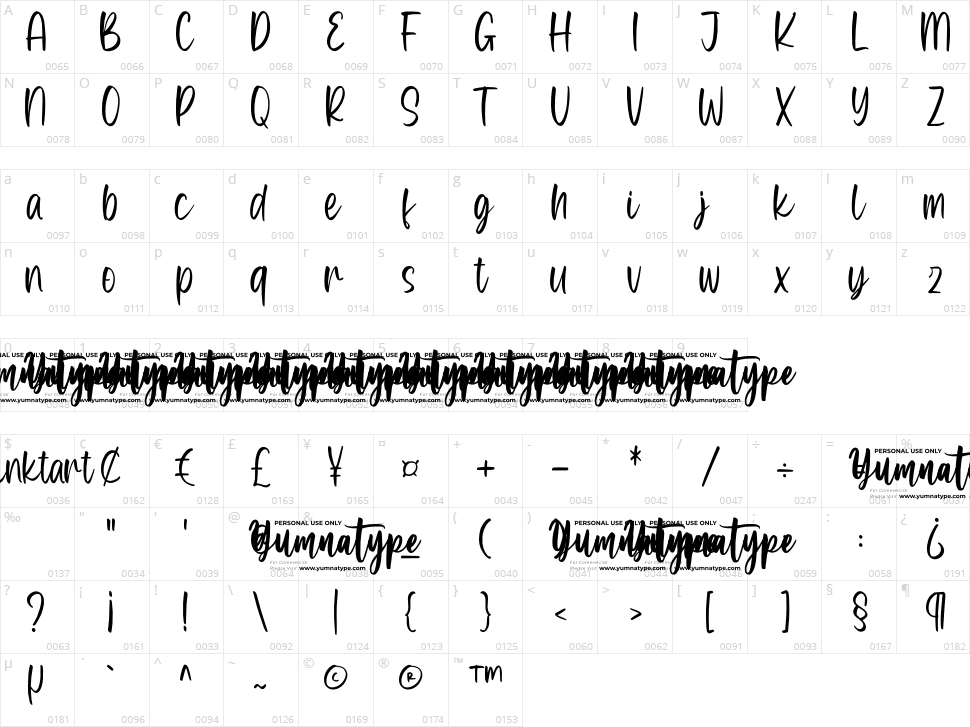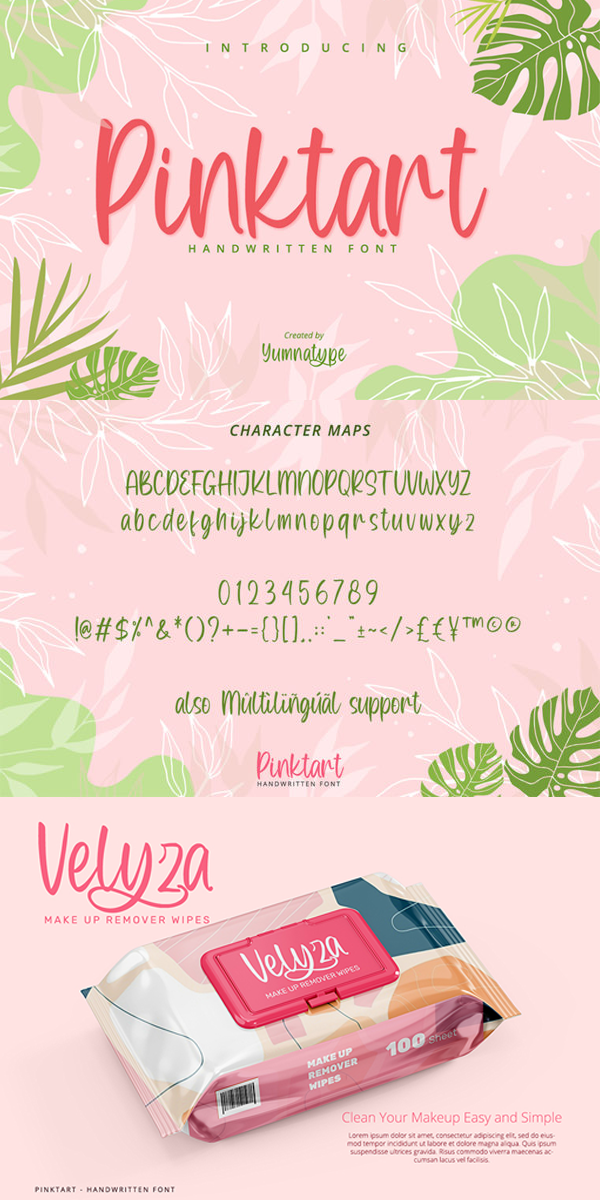
Pinktart
Pinktart is a lovely handwritten font with a natural and unique design will make your project more
beautiful. The font is suitable for your branding project, printing, logos dan wedding.